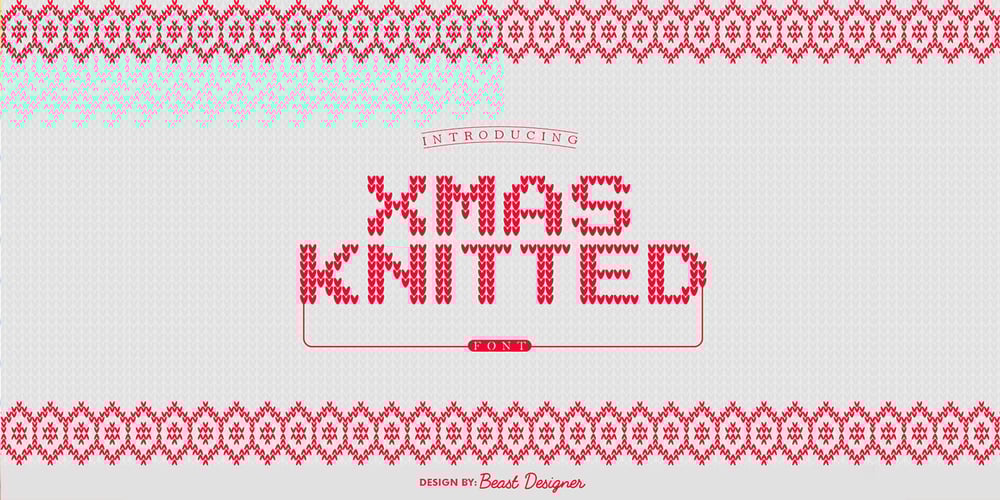
Xmas Knitted Font Family was designed by Mohammed Lamjidi and published by Beast Designer. Xmas Knitted contains 1 styles and family package options. Imagine a font that embodies the cozy warmth of a holiday sweater. The Xmas Knitted Font is a whimsical creation that brings to life the spirit of the season with each letter. Crafted meticulously, it mimics the intricate weave of yarn, evoking the charm of hand-knitted patterns. Each character is adorned with festive elements like snowflakes, holly leaves, or reindeer motifs, creating a delightful tapestry of holiday cheer. The font exudes a nostalgic, homemade feel, reminiscent of cherished moments by the fireplace, sipping cocoa, and sharing stories during the festive season. Its playful yet comforting design makes it perfect for adding a touch of seasonal magic to invitations, greeting cards, or any project seeking a dash of Christmas spirit.